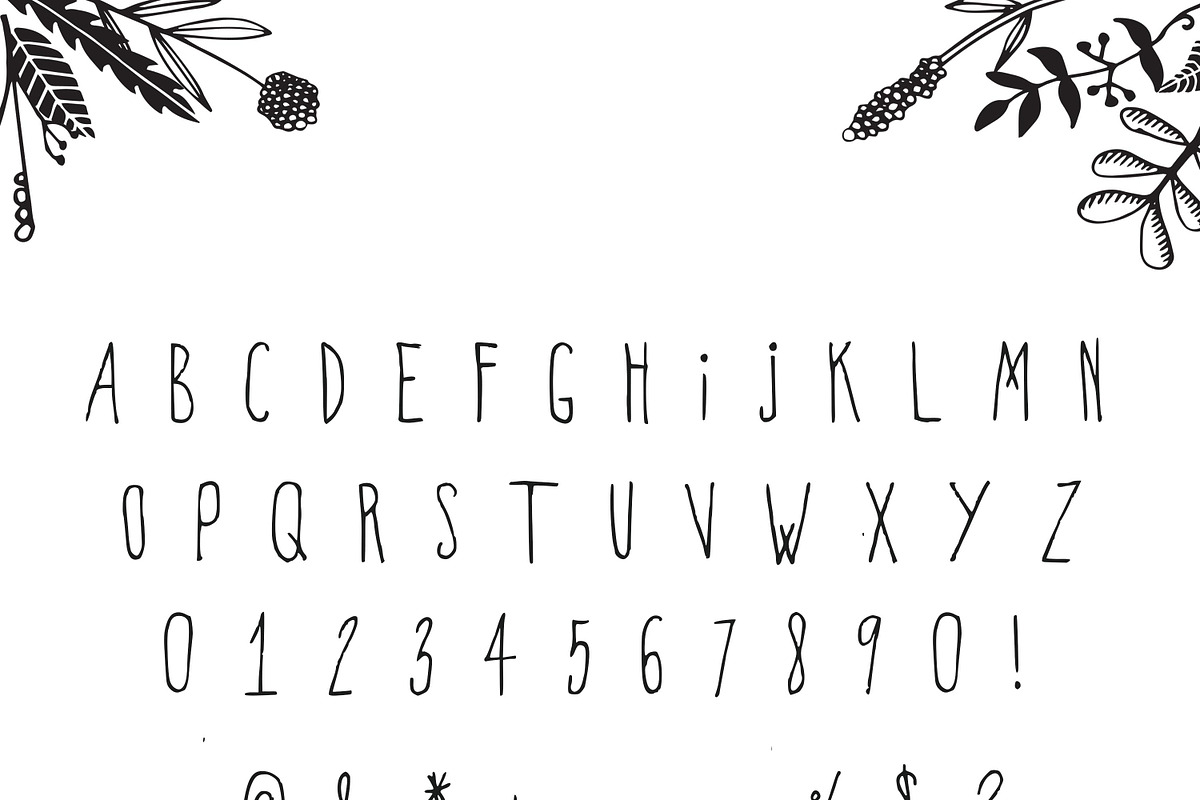
Briley Typeface
Briley Typeface by Sweet Little Muse is a font selected for branding, posters, packaging, typography.
Why Briley Typeface is worth a look
Briley Typeface by Sweet Little Muse fits naturally into Branding, posters, packaging, typography.